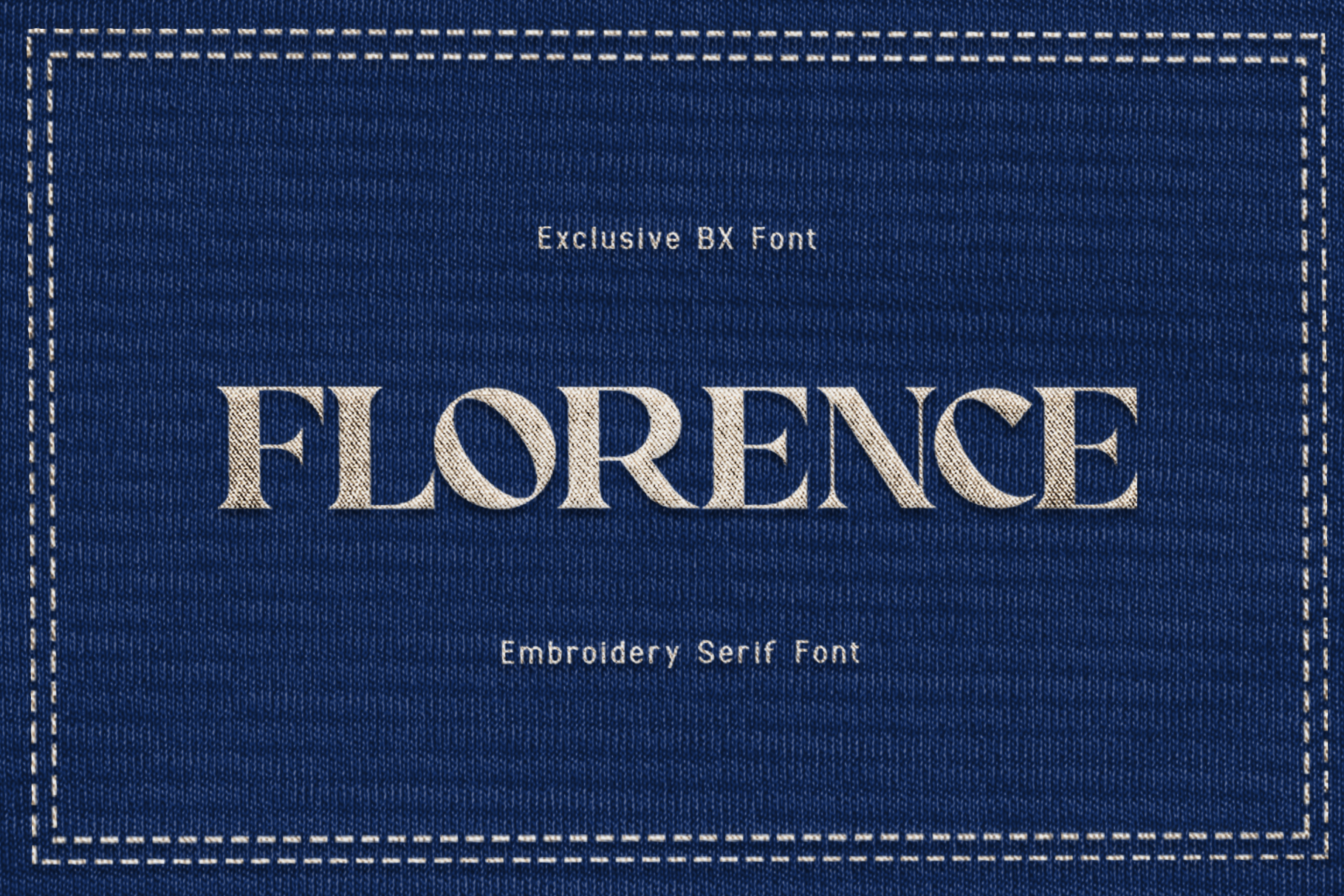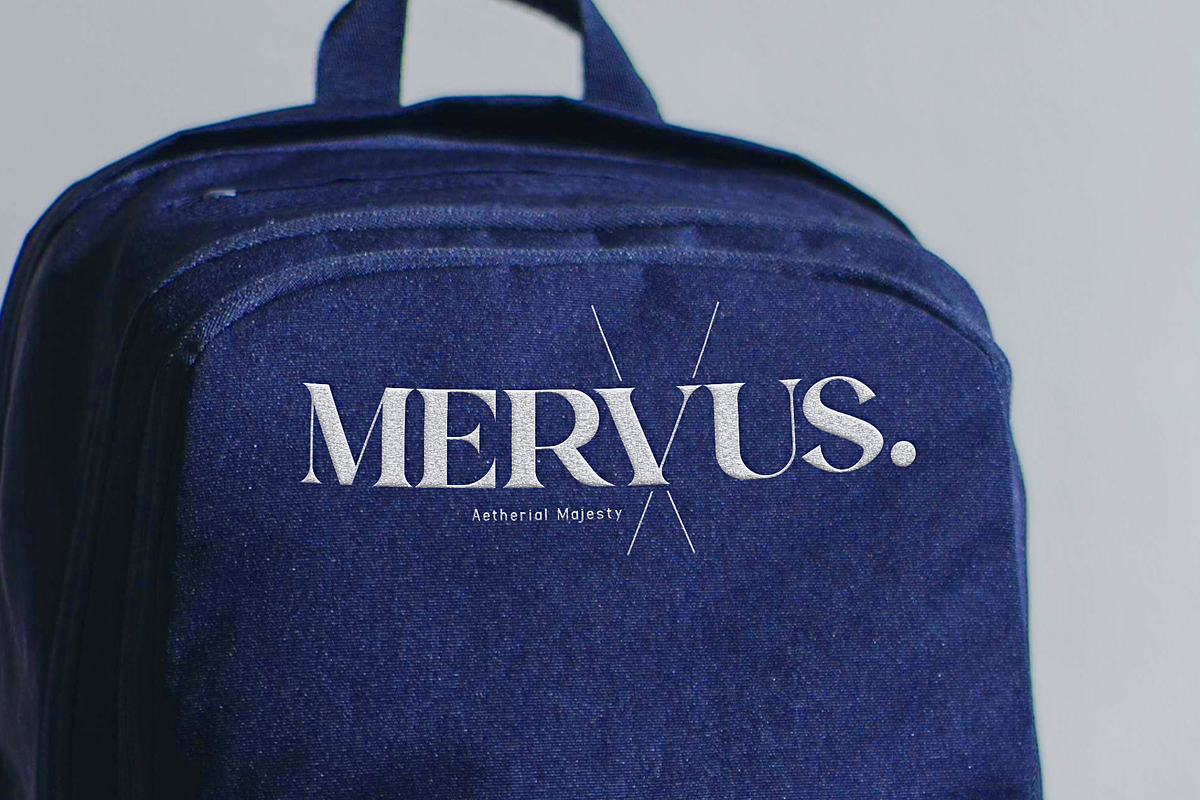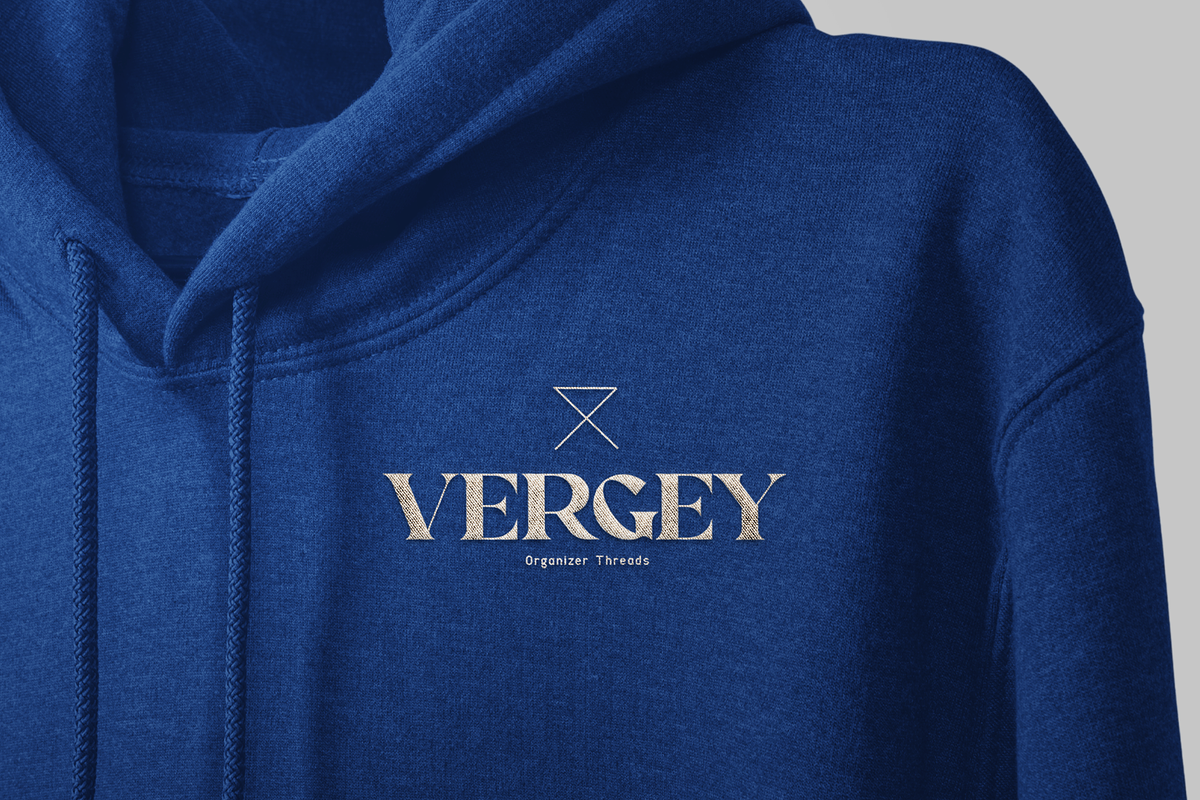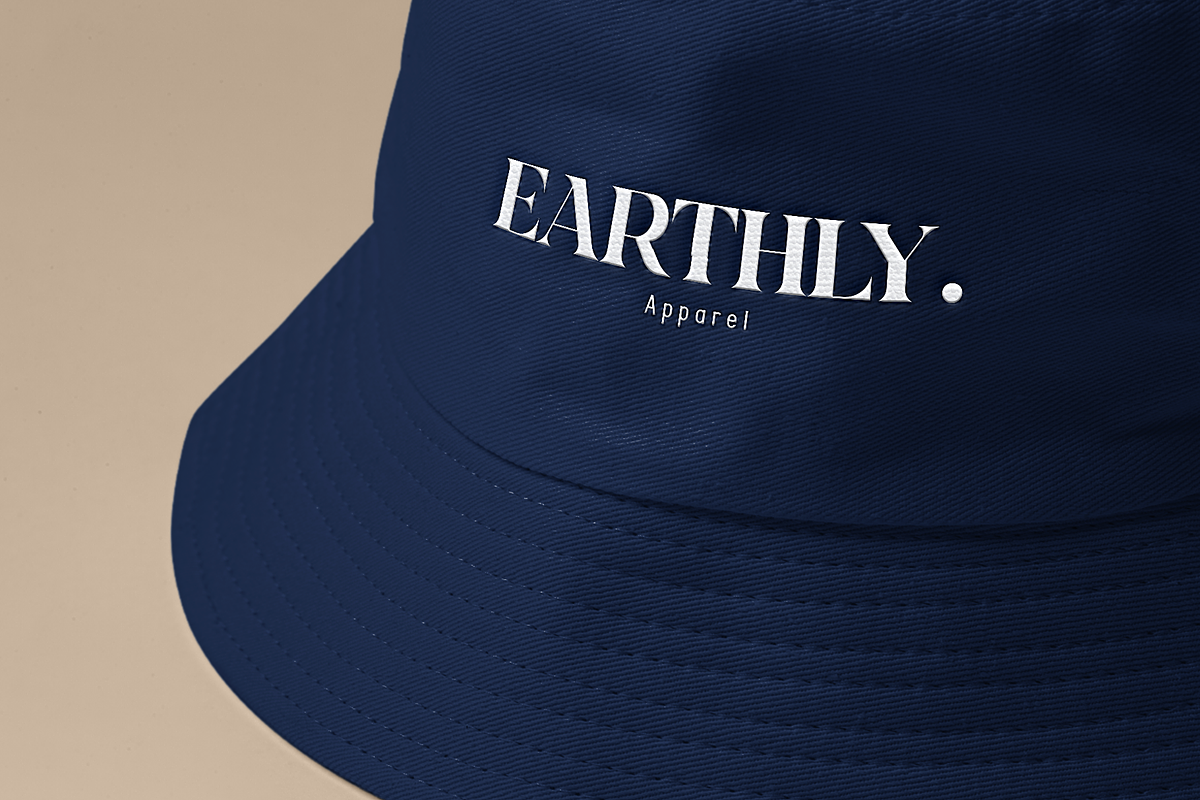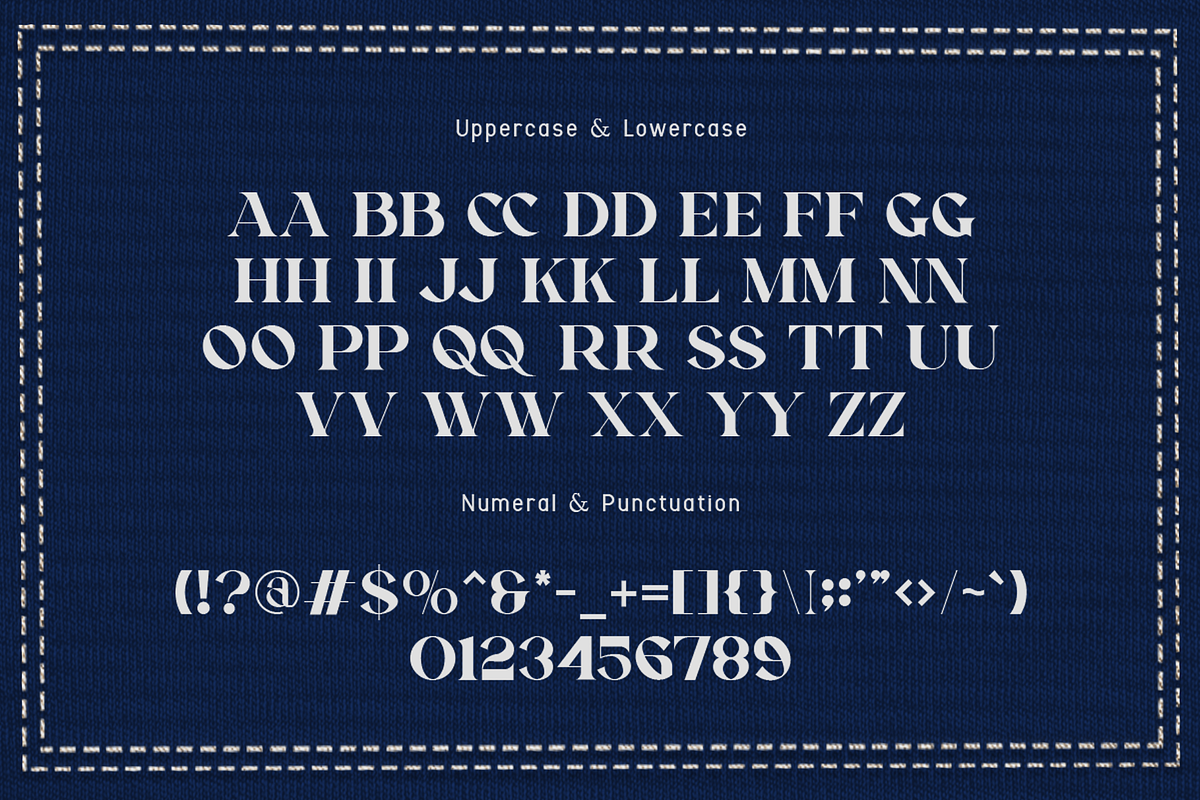
Florence - Embroidery Serif Font
Embark on a journey of timeless elegance with "Florence," an embroidery serif font meticulously crafted to elevate your designs. Inspired by the sophistication of classical embroidery, Florence seamlessly blends tradition with modernity to bring a touch of refined beauty to your creative projects.
Perfect for embroidery enthusiasts, designers, and crafters alike, Florence adds a sense of luxury to apparel, accessories, home decor, and more. Its graceful serifs and intricate details create an aura of sophistication that enhances the allure of embroidered designs.
The "Florence" font boasts a complete set of uppercase and lowercase letters, numbers, and punctuation marks, providing versatility and flexibility for all your embroidery needs. Whether you're embellishing garments or adorning home furnishings, Florence brings an exquisite touch to every stitch.
Experience the timeless elegance and exquisite craftsmanship of Florence embroidery serif font, and let your designs flourish with sophistication.